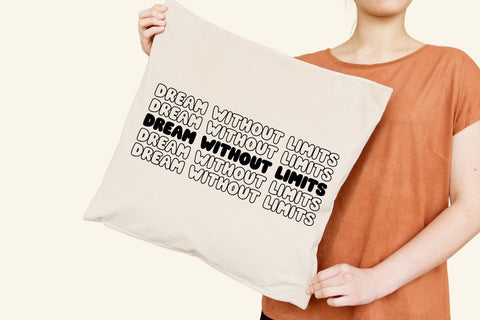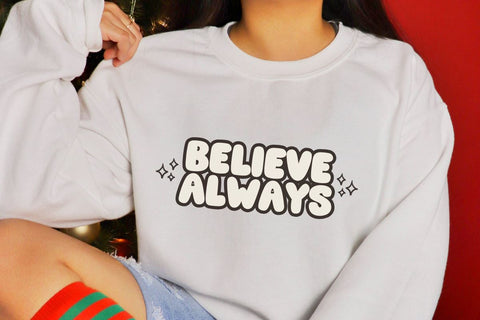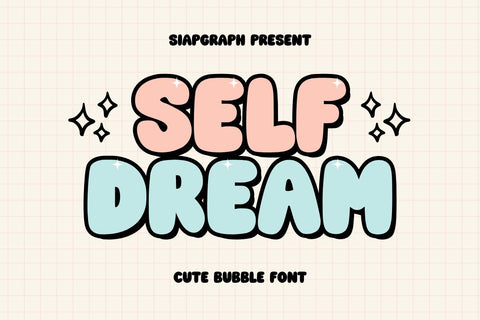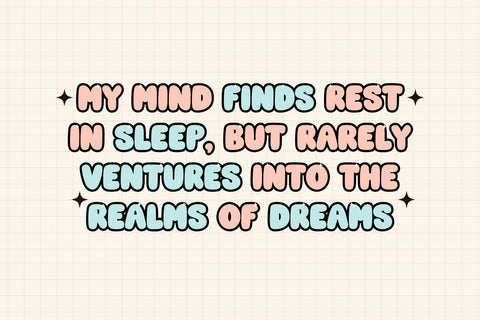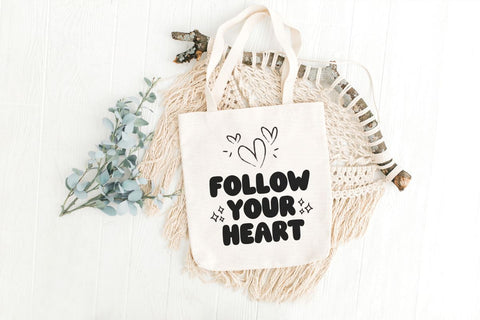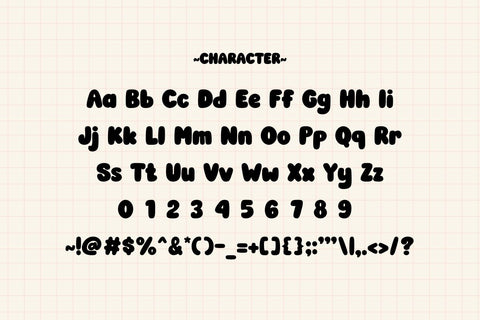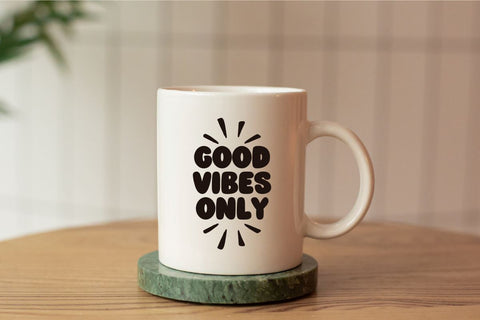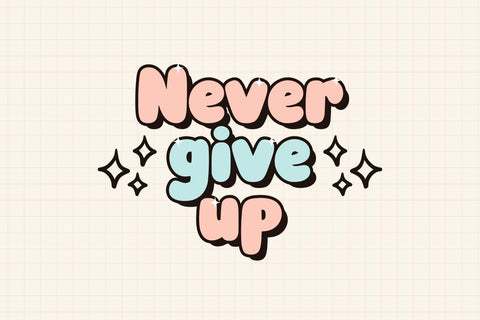
Self Dream - Cute Bubble Font
Self Dream is a modern, bold retro bubble display font. this font is ready to be used in any project. Very suitable for logotype, Stickers, Packaging design, Cricut Project, headlines, brand identity, t shirt or apparel industry, posters, magazines, books, YouTube, Instagram, websites, or any of your creative design projects. In addition, this font is also suitable for various themes such as New Year's Day, Valentine's Day, Black Friday Month, The Super Bow!, Saint Patrick's Day, Mardi Gras, International Women's Day, Easter, Earth Day, Mother's Day, Memorial Day, Father's Day, Pride Month, 4th of July, Back to School, Labor Day, Halloween, Breast Cancer, Awareness Month, Thanksgiving, Christmas Day.